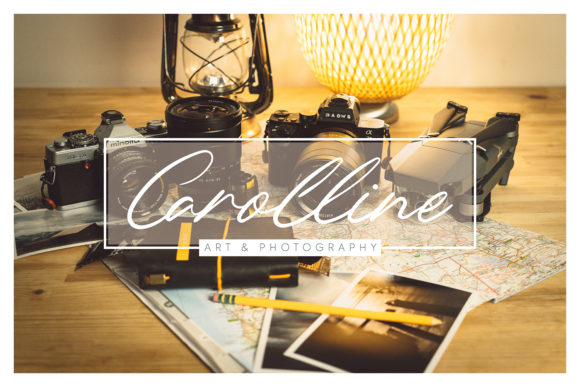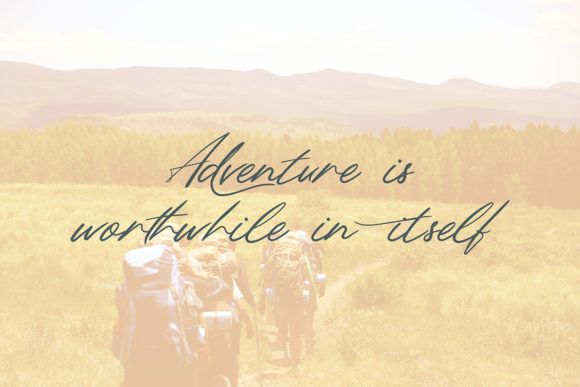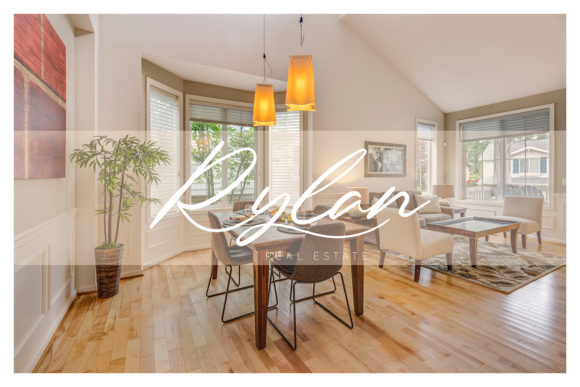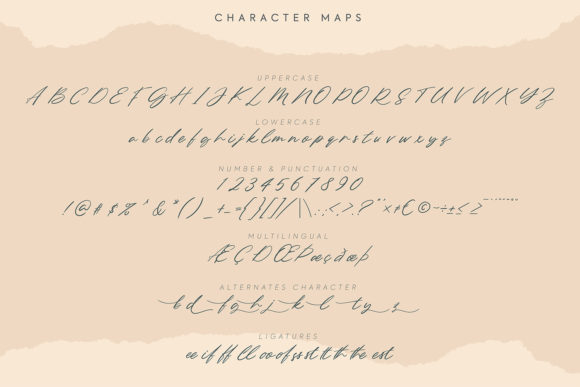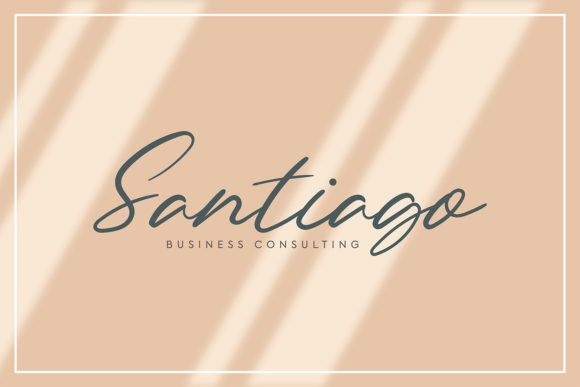
Introduction to Northern Forest Font
Imagine you’re brainstorming for a new project and suddenly, the perfect idea strikes you. You grab your favorite pen and start sketching out your concept, but you wish you had a way to bring it to life with a touch of elegance and sophistication. That’s where the Northern Forest Font comes in – a stunning, high-quality handwriting font that’s sure to elevate your creative project to new heights.
This exquisite design is not just a pretty face; it’s a valuable resource for designers looking to add a touch of class to their work. With its contemporary feel and calligraphic influences, the Northern Forest Font is the perfect addition to any design arsenal. And the best part? It’s available for a free download, complete with a transparent background, making it easy to integrate into your project.
Key Features of Northern Forest Font
- Unique, high-quality design suitable for creative projects, such as posters, flyers, and brochures.
- Comes with a transparent background, making it easy to layer and customize in graphic design software.
- Includes 5 font styles, each with a distinct look and feel to suit different design needs.
Honest Review: Northern Forest Font
Here are some things that work well with the Northern Forest Font:
- ✨ The font’s unique design is perfect for nature-inspired projects, from outdoor branding to editorial content.
- ✨ The transparent background makes it easy to layer over images or use as a background itself.
- ✨ The font’s high quality ensures that it looks great at various sizes and resolutions.
- ⚠️ The font may not be suitable for large blocks of text, as it can become overwhelming.
- ⚠️ Some users may find the font too stylized for certain design projects.
Overall, I think the Northern Forest Font is a great design resource for the right projects. Its unique design and high quality make it a great choice for creative projects that need a touch of nature-inspired flair. Just be mindful of its limitations and use it accordingly.
How to Use Northern Forest Font
The Northern Forest Font is a high-quality design resource that can elevate your creative project. This versatile font features a unique, natural aesthetic with a transparent background, making it perfect for a variety of applications.
– Add a touch of natural elegance to your graphics and designs
– Experiment with the font’s unique aesthetic in your digital art projects
– Add a professional touch to your presentations and documents
Tips for Getting the Most Out of the Northern Forest Font
To get the most out of the Northern Forest Font, experiment with different font sizes, colors, and combinations to find the perfect look for your project. Consider pairing the font with other natural elements, such as leaves or flowers, to create a cohesive design.
The Northern Forest Font is perfect for a variety of projects, including:
- Outdoor and nature-themed designs
- Children’s books and educational materials
Comparison to Northern Forest Font: Woodland Script has a more organic, handwritten feel compared to the more rustic, block-style letters of Northern Forest Font.
Comparison to Northern Forest Font: Forest Falls is more refined and polished compared to the rustic, earthy feel of Northern Forest Font.
Is the Northern Forest Font suitable for high-quality print projects?
Yes, the Northern Forest Font is designed to be a high-quality design resource, making it suitable for a wide range of print projects, including business cards, posters, and brochures. The font’s high resolution and detailed design ensure crisp and clear output, even at large sizes.